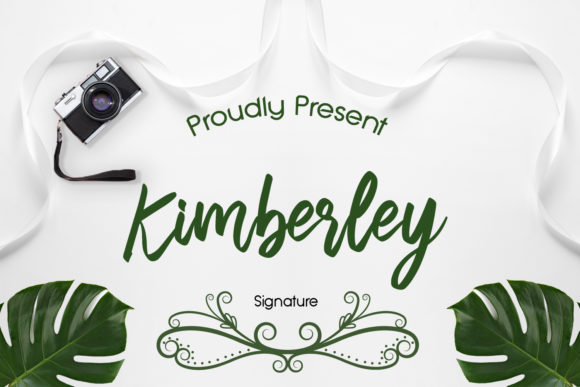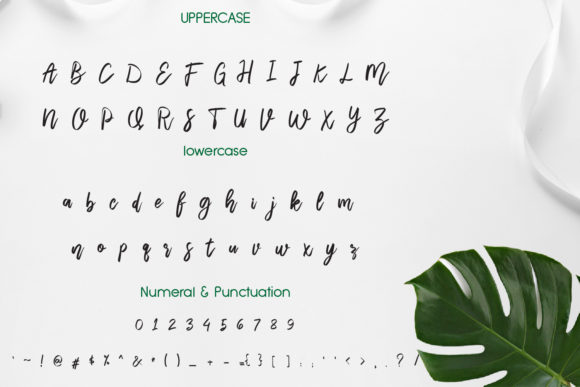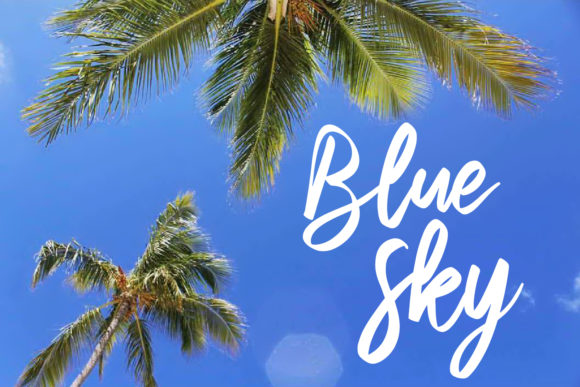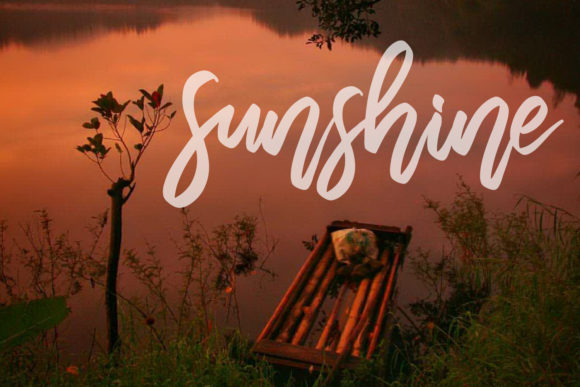
Kimberley Font
Kimberley is an amazing brush calligraphy. It has a modern style and will add a natural feel to your designs. It can be used for various purposes, such as headings, signatures, logos, wedding invitations, t-shirts, letterheads, signage’s, labels, news, posters, badges, and much more!